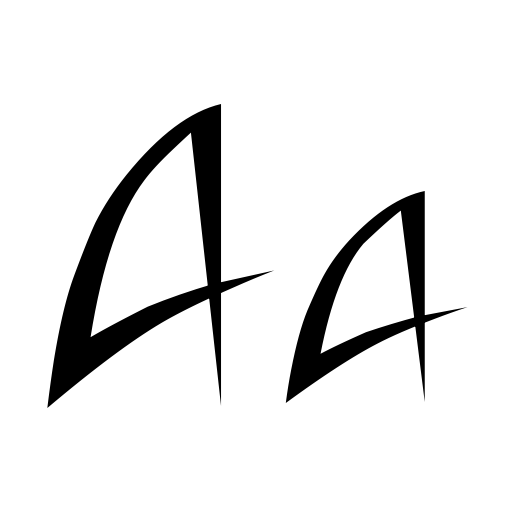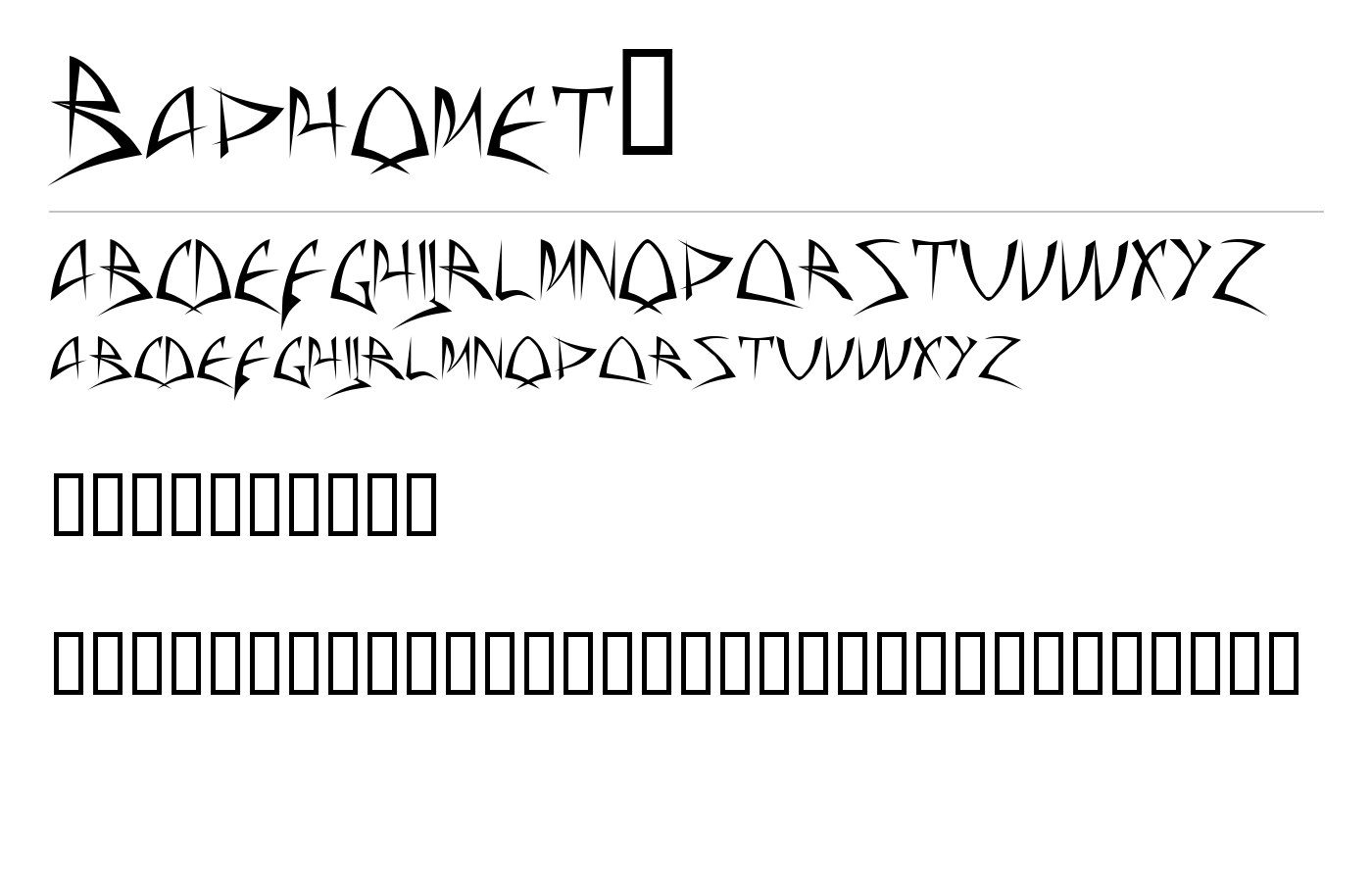
Baphomet™ is a sharp, angular display font with a dark, edgy personality, characterized by its narrow letterforms and high contrast between thick and thin strokes. Its unique, almost gothic style with pointed serifs and dramatic flourishes makes it ideal for designs seeking a mysterious or rebellious vibe, perfect for logos, posters, or branding in alternative fashion and entertainment. This font stands out best in large sizes where its intricate details can be fully appreciated.
Baphomet™ Font